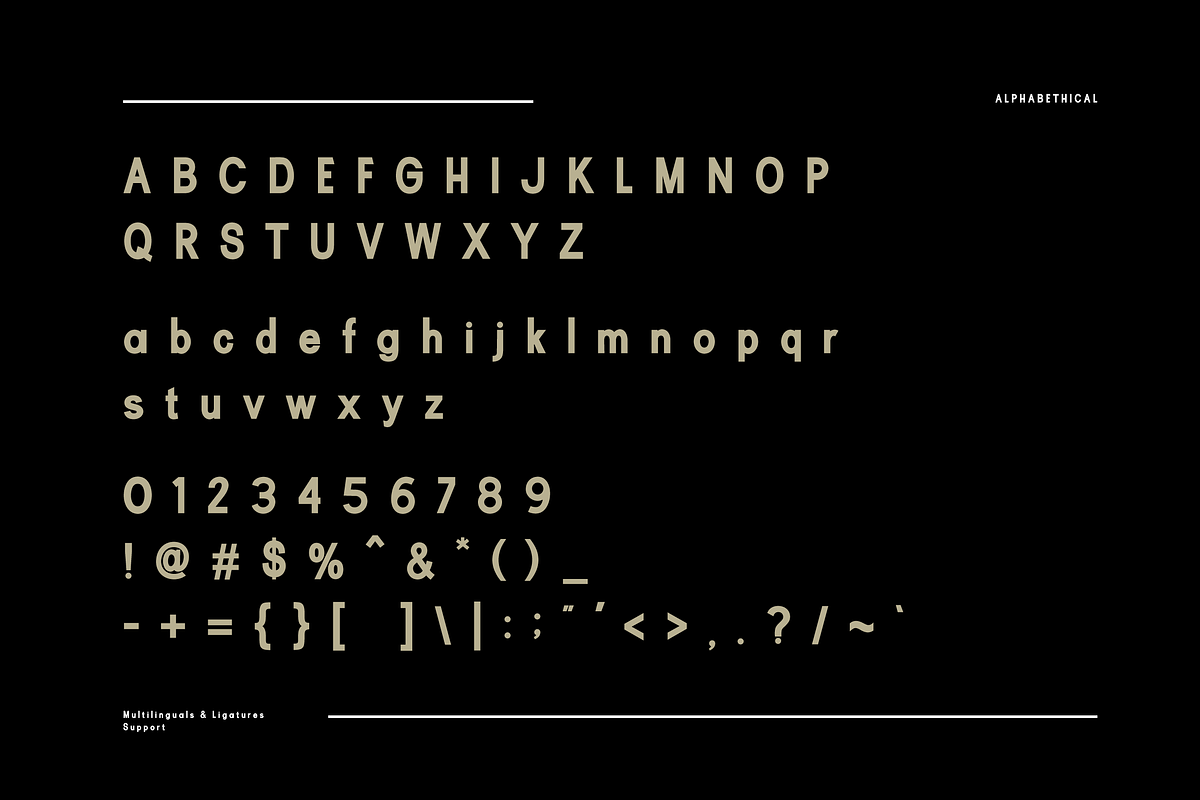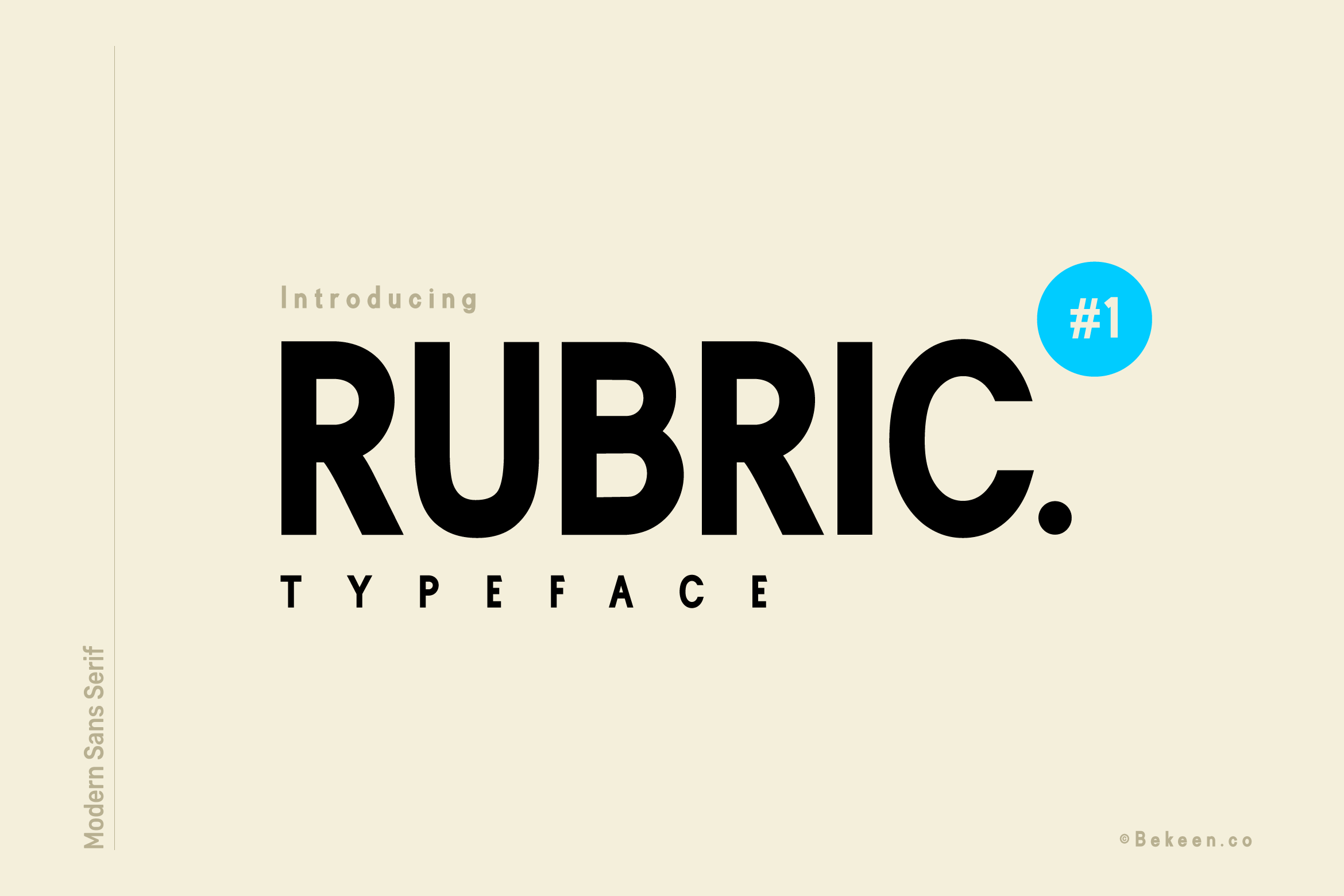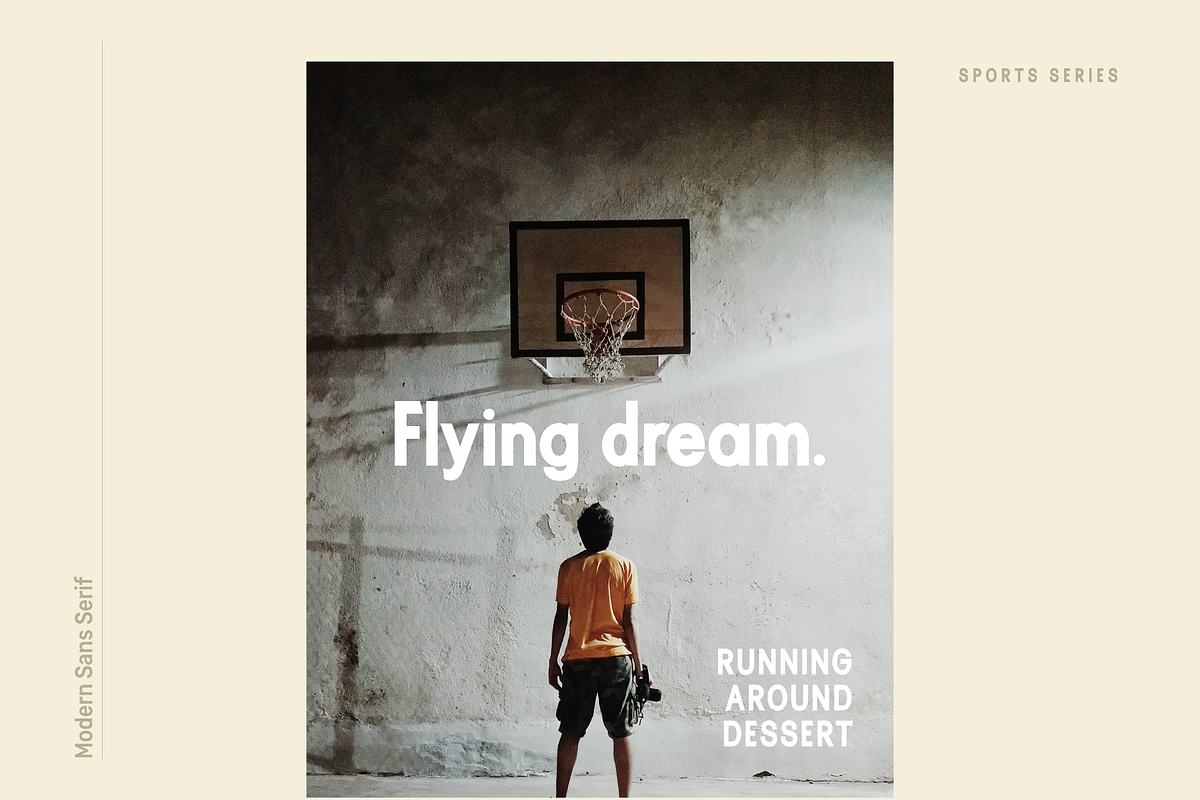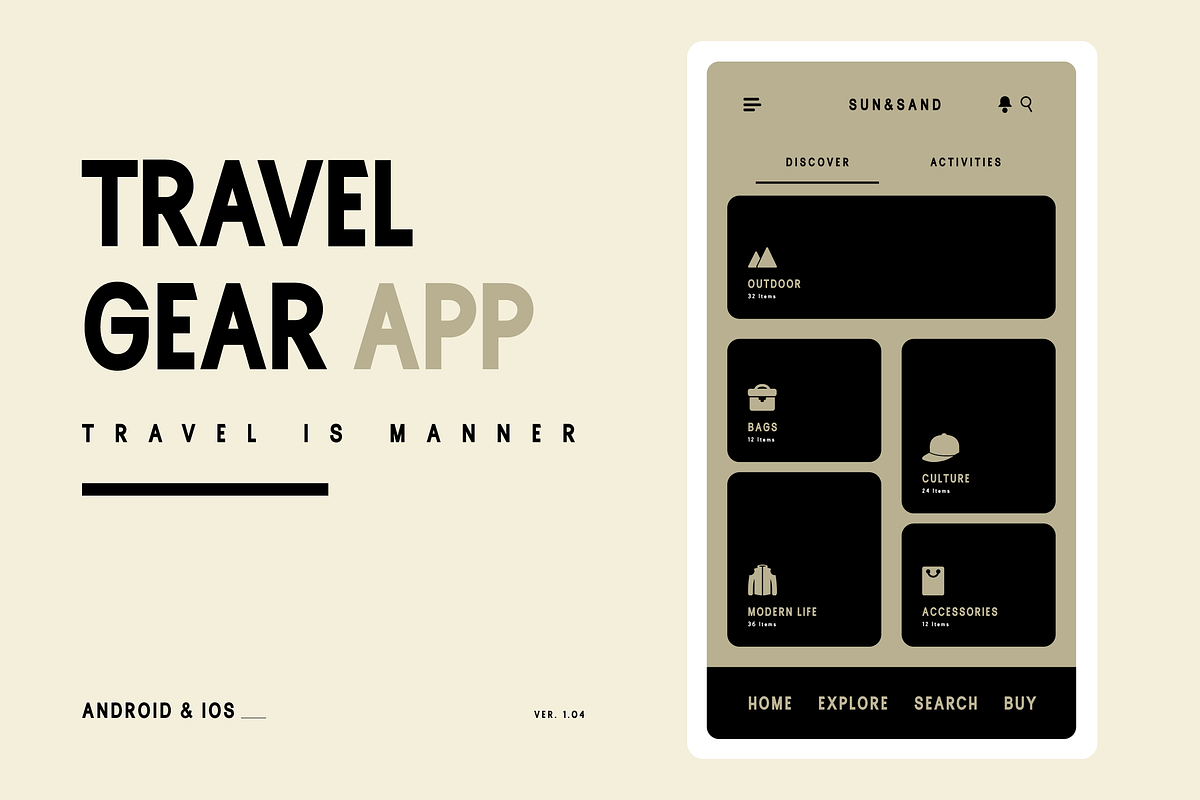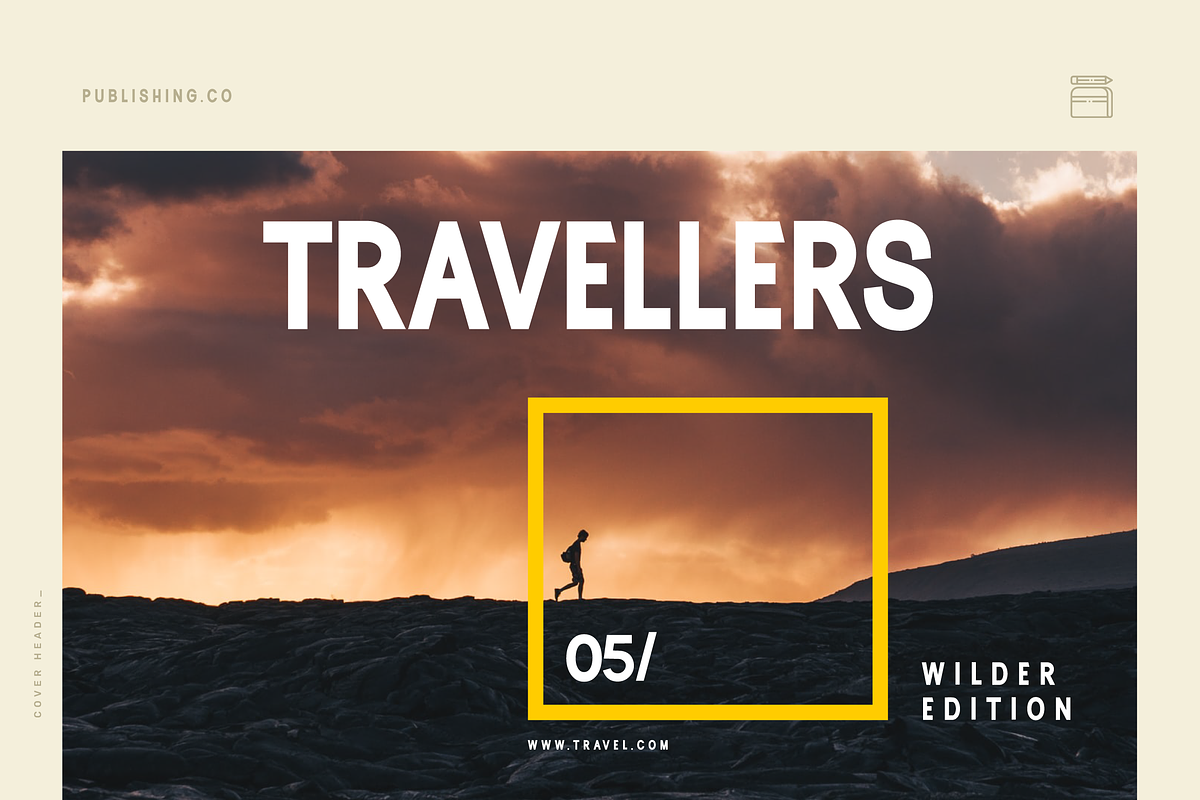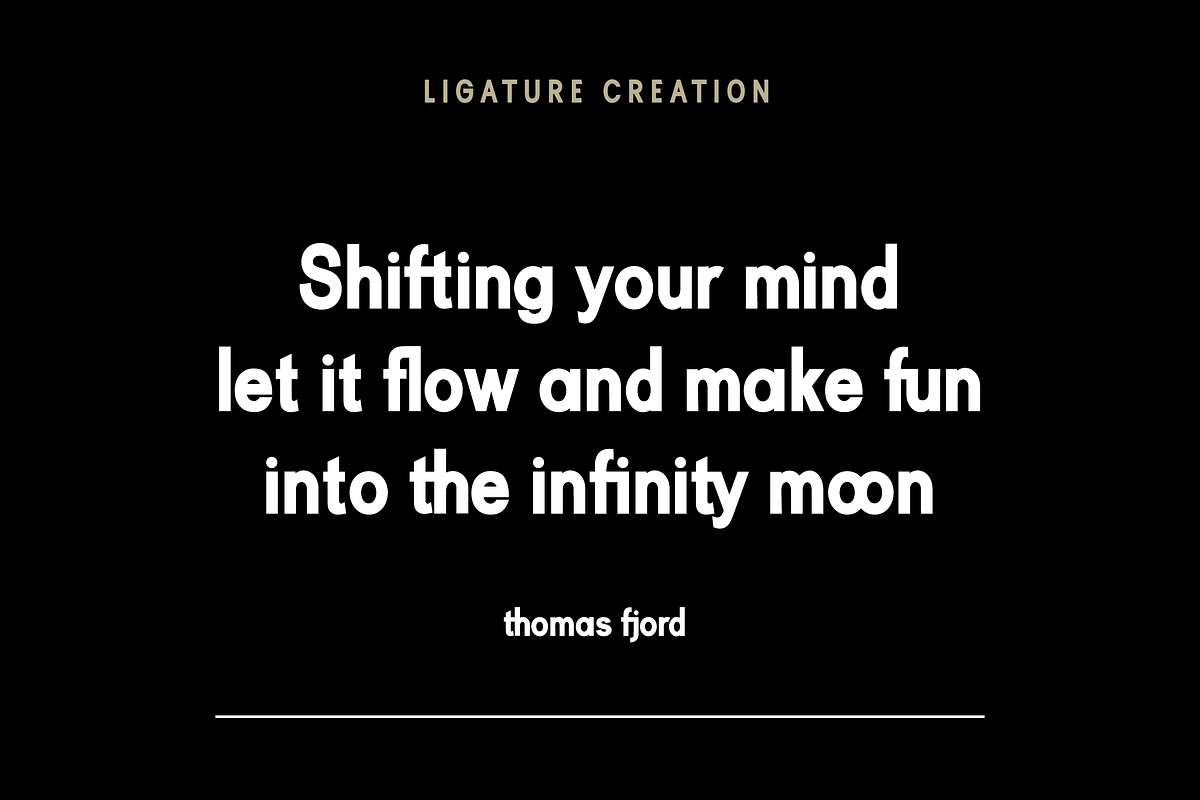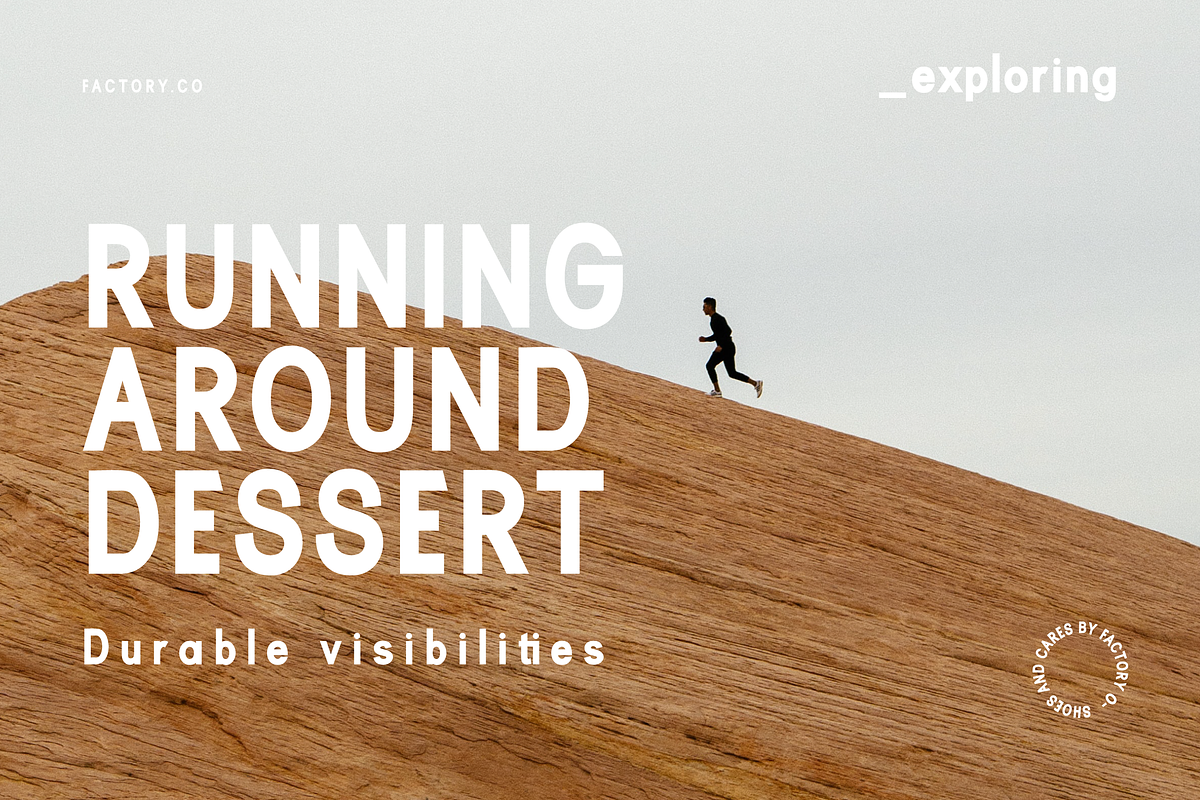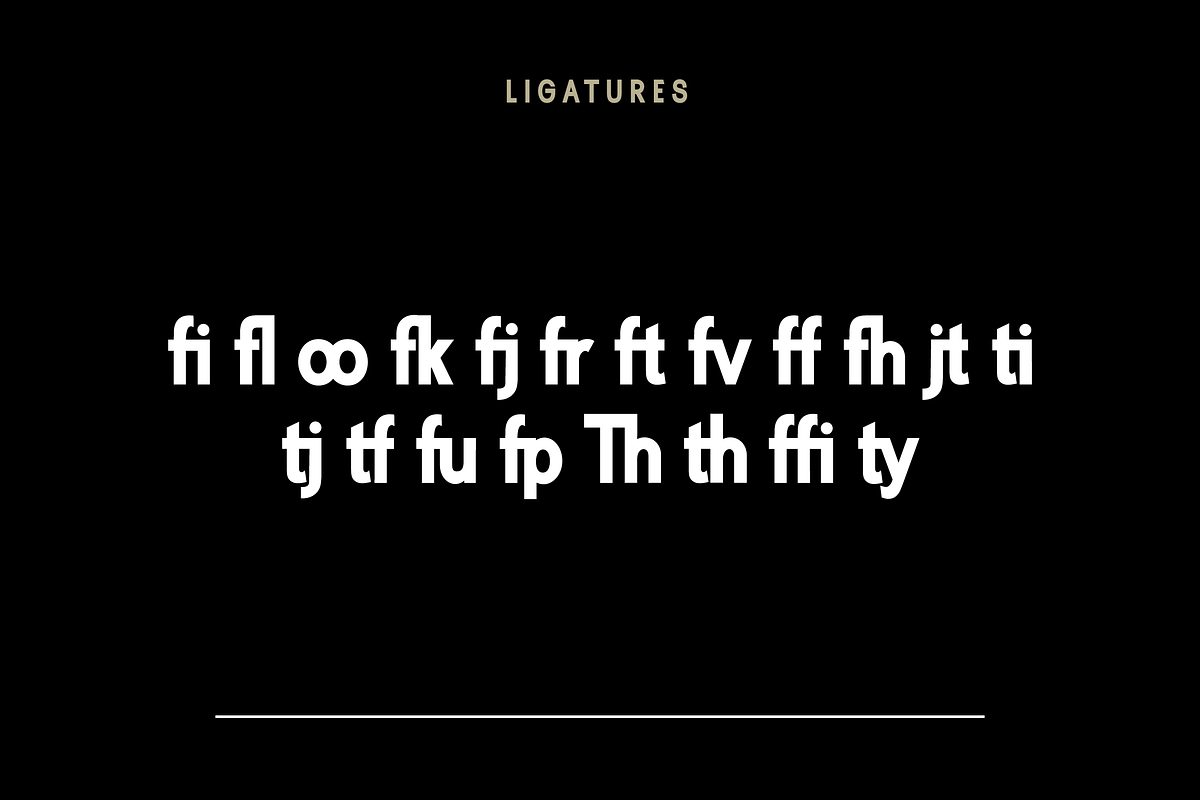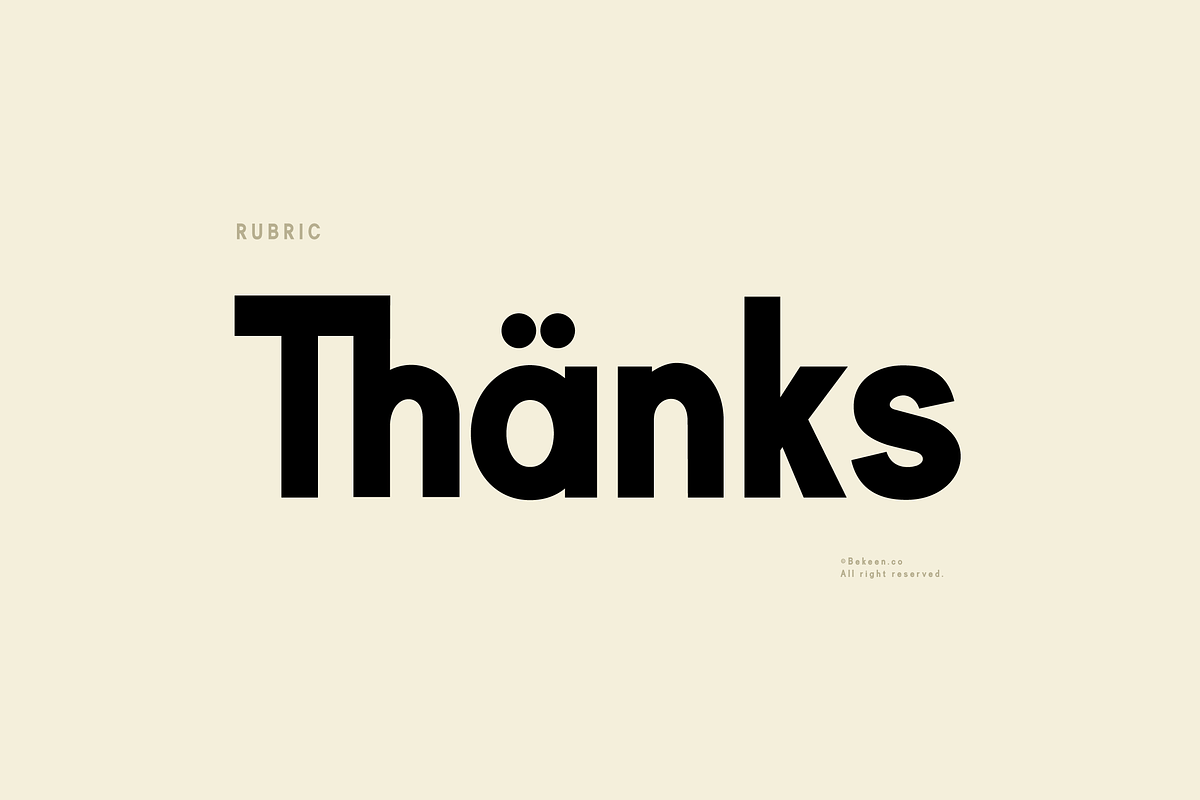
Sans Serif Font
Rubric is a new sans serif font inspired by headlines in magazines. With the balancing of hard lines and smooth curves give a strong and minimalist look to branding, magazine, packaging, advertisements, websites, and more.